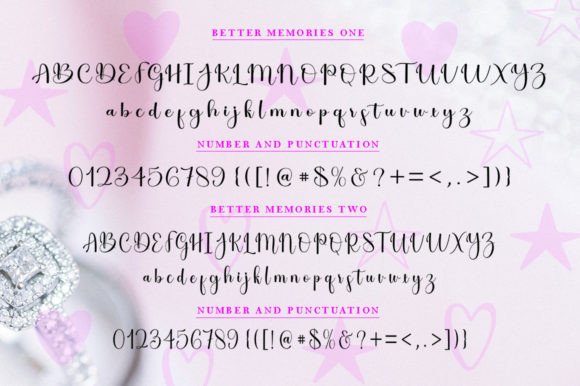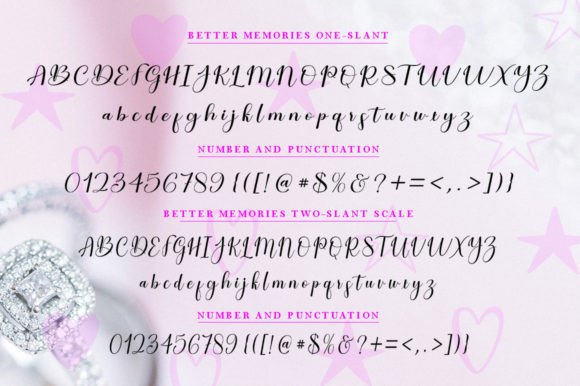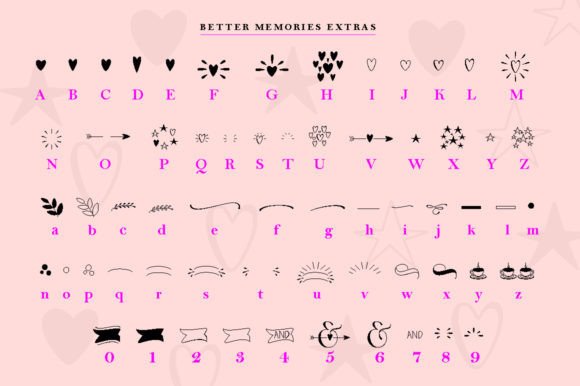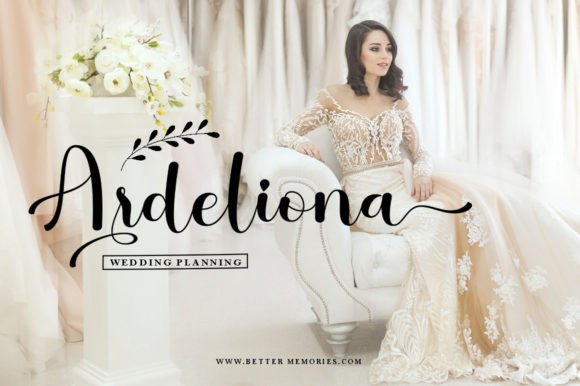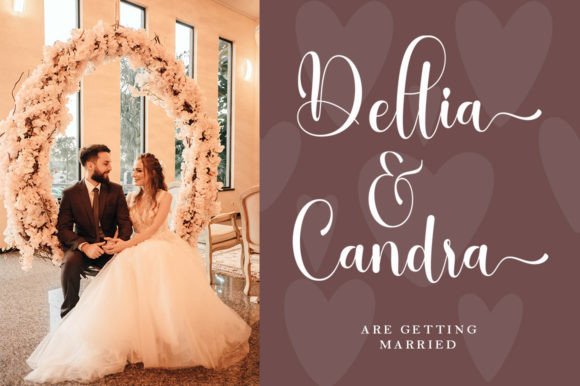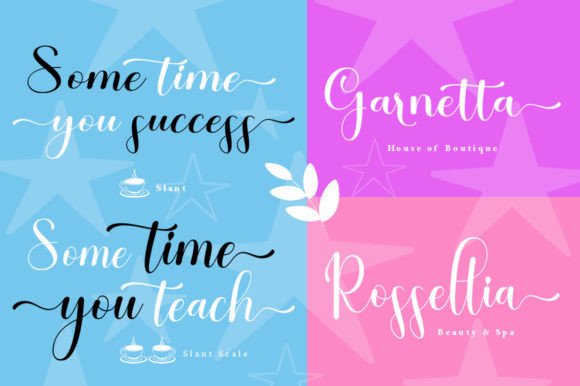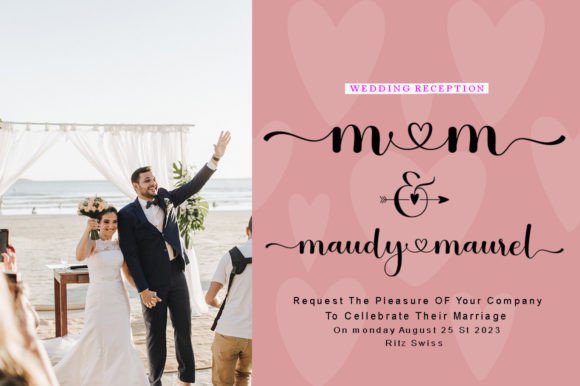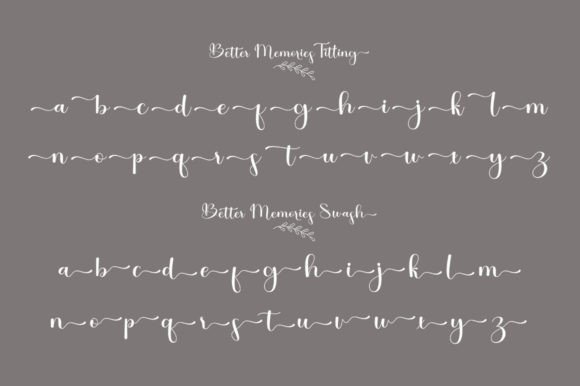
Better Memories Font
**Better Memories** is a font that strikes a perfect balance between charm and elegance. Its stunning and versatile appearance makes it suitable for a wide variety of design projects, including wedding invitations, thank you cards, quotes, greeting cards, logos, business cards, and any other design that benefits from a handwritten touch. Additionally, it is PUA encoded, allowing you to easily access all of its glyphs and swashes.
The unique appeal of **Better Memories** lies in its ability to bring a touch of sophistication and personalization to your designs. The font’s handwritten style adds warmth and character, making your creative work feel elegant and inviting.
One of the standout features of **Better Memories** is its adaptability. Whether you’re designing a refined wedding invitation, creating heartfelt thank you cards, or crafting quotes that exude charm, this font seamlessly fits into diverse design contexts. Its charming and elegant nature adds a touch of grace to your creations.
**Better Memories** is equally at home in digital designs and printed materials. Whether it’s used to create a stylish digital logo or applied to the surface of printed business cards, this font maintains its charm and elegance. Its readability ensures that your message is conveyed effectively, while its handwritten style adds an extra layer of visual appeal.
What sets **Better Memories** apart is its ability to convey a sense of refinement and personalization. It’s a font that invites your audience to engage with your creative ideas in a way that resonates with its elegant and handwritten quality. With **Better Memories** as part of your creative toolkit, you can add a touch of sophistication and individuality to your designs, making them more memorable and captivating.
Furthermore, **Better Memories** offers a wide array of customization options, allowing you to tailor your text to match your creative vision precisely. This flexibility empowers you to create designs that align perfectly with your artistic preferences.
In conclusion, **Better Memories** is not just a font; it’s a design asset that enhances your creative projects with charm, elegance, and a sense of personalization. Embrace its handwritten style, and let it inspire you to craft designs that exude refinement and individuality. With **Better Memories** by your side, your creative possibilities are expansive, enabling you to create works of art that captivate and engage your audience through its graceful and elegant typography.